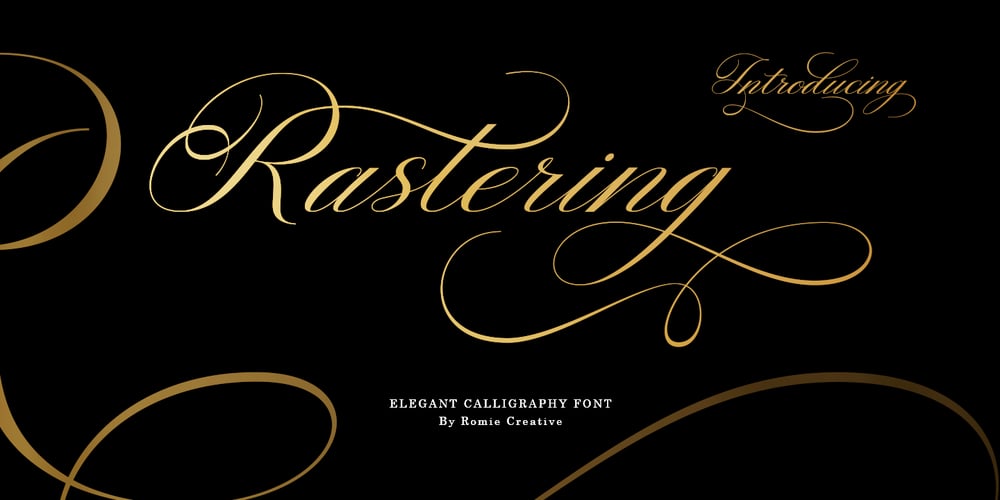
Rastering Font Family was designed by Romi Rahmadi and published by Romie Creative. Rastering contains 1 styles and family package options. Introducing our new product called Rastering | Elegant Calligraphy Font Manu script. Rastering fonts include uppercase and lowercase letters, numbers, various types of punctuation and ending. All lowercase including last swash and alternate fonts.